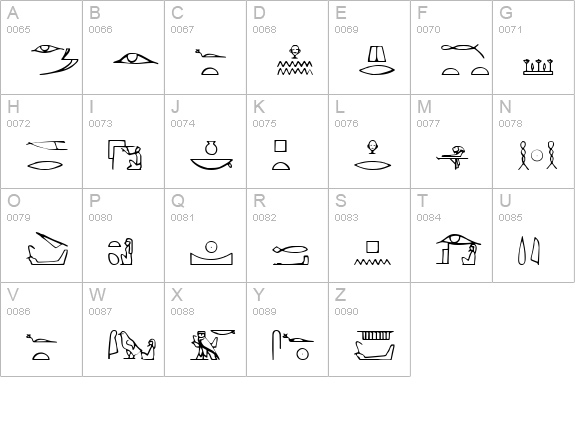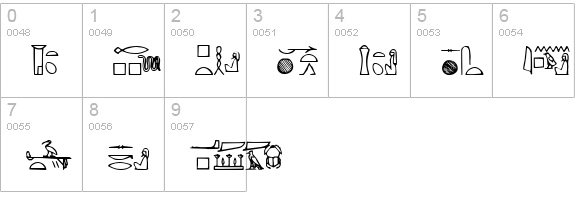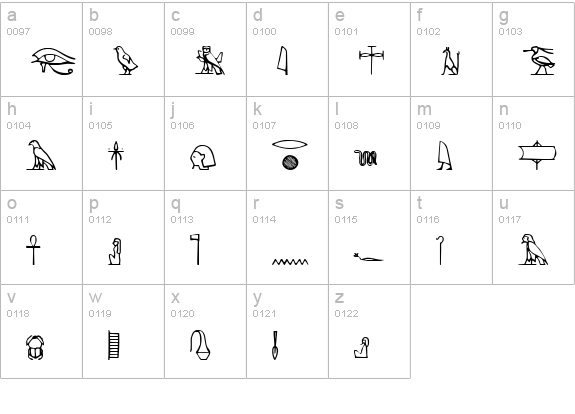
Yiroglyphics Font Details
Yiroglyphics font is a visually captivating and intricate typeface that draws inspiration from ancient hieroglyphics. Each character is uniquely designed with intricate details and a mysterious allure, making it perfect for adding a touch of exotic flair to your projects. The font features a blend of traditional symbols and modern design elements, creating a harmonious fusion of the past and present. Best of all, Yiroglyphics font is available for free download at FontsMarket.com. Whether you're working on a historical project, a mystical theme, or simply looking to add a touch of sophistication to your designs, Yiroglyphics font is a versatile choice that will surely make a statement. Embrace the timeless appeal of ancient symbols with this stunning font that is both captivating and free to use.